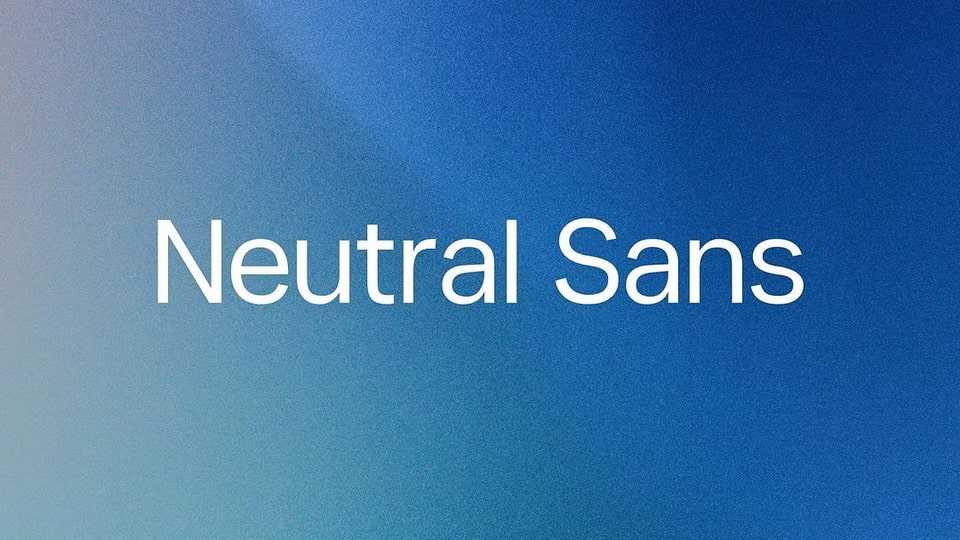
Download Neutral Sans font, a modern, humanist-inspired sans-serif typeface, designed to provide clarity, versatility, elegance and a touch of warmth.
Designer: Barry Shawn